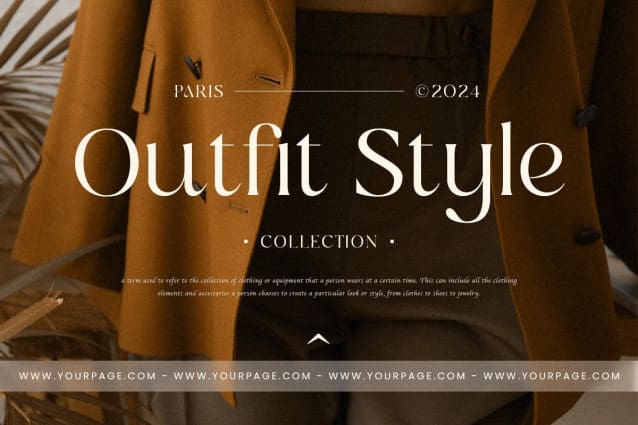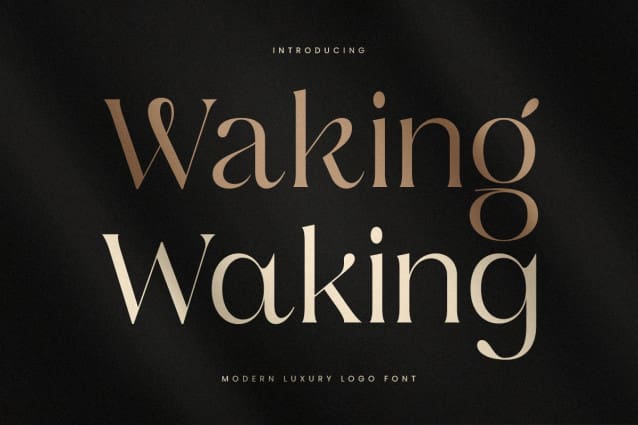
Waking Font
Waking Font, a font that exudes sophistication and timeless elegance. Whether for creating stunning logos or refined typography, Waking brings a touch of luxury to all your design projects. Make a lasting impression with Waking’s high-end style and impeccable design.